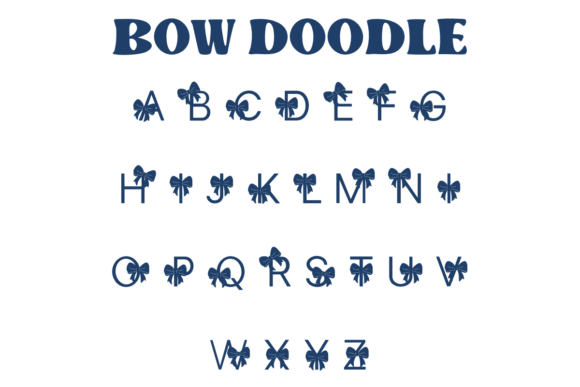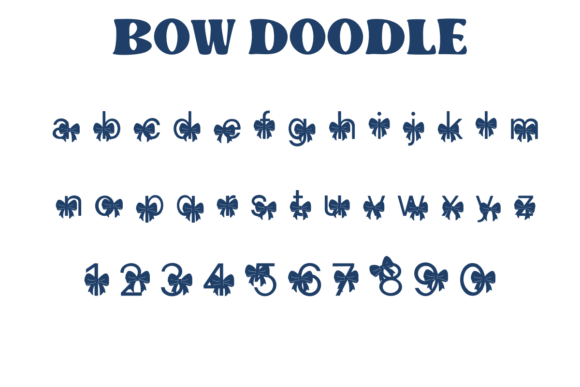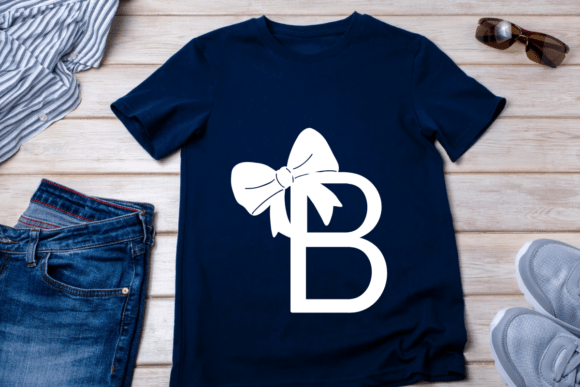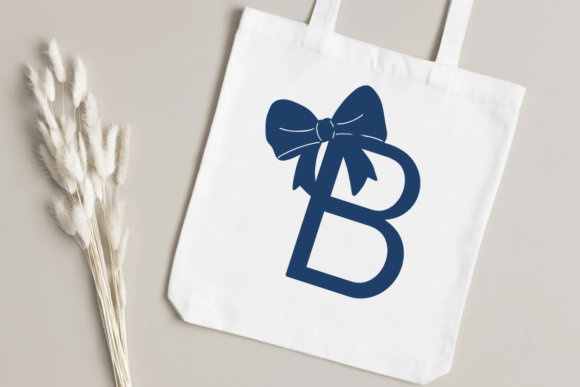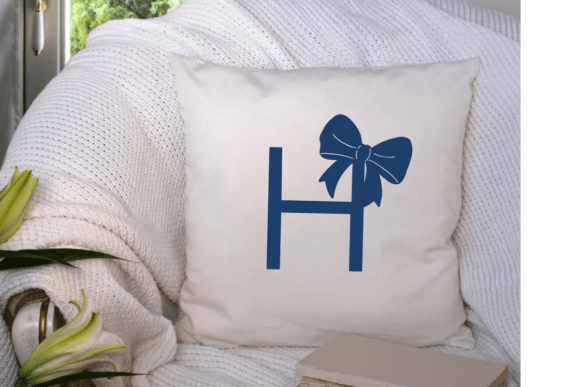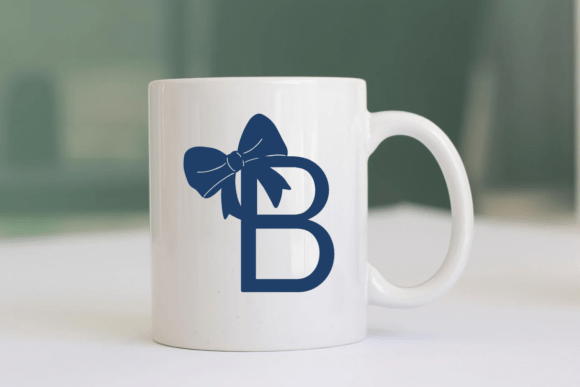
The Ultimate Guide to Bow Doodle Font: Unleashing Creativity in Your Designs
I’ll never forget the moment I stumbled upon the Bow Doodle font while working on a project for a client who requested a custom greeting card design. I had been searching for the perfect font for hours, trying out various options, but none seemed to fit the playful and whimsical vibe I was going for. That’s when I discovered Bow Doodle, and it instantly became the star of the show! ✨ In this article, we’ll dive into the world of Bow Doodle, exploring its features, uses, and some helpful tips on how to make the most of this beautiful decorative font.
An Honest Review of Bow Doodle Font
So, what makes Bow Doodle so special? Let’s take a closer look:
• ✨ Unique and eye-catching design: Bow Doodle’s decorative style is perfect for adding a touch of personality to your designs.
• ✅ Versatile: This font can be used for a wide range of projects, from notes and diaries to banners, social media posts, and more!
• ✅ Easily legible: Despite its decorative nature, Bow Doodle remains easy to read, making it perfect for both digital and print designs.
However, as with any font, there are a few quirks to be aware of:
• ⚠️ Limited use in formal designs: Bow Doodle’s playful nature makes it less suitable for formal or professional designs, such as business reports or official documents.
• 🤔 May not work well at small sizes: Due to its decorative features, Bow Doodle may become difficult to read at very small font sizes.
The Story Behind Bow Doodle Font
The story behind Bow Doodle is one of creativity and inspiration. While the font’s actual origins are unclear, it’s believed to have been designed by a team of creatives who wanted to create a unique and playful font that would bring joy to designers and crafters alike. Whether you’re a professional designer or a hobbyist, Bow Doodle is sure to inspire your next creative project!
What is Bow Doodle font best used for? Bow Doodle is perfect for designs that require a playful and whimsical touch, such as greeting cards, notes, diaries, and social media posts.